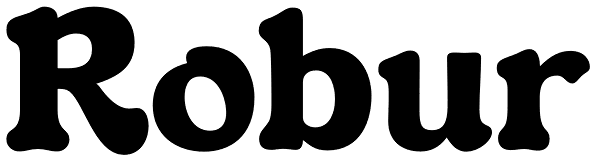
Robur
It shouldn't be a surprise to anyone that these letter shapes are familiar. They have the unmistakable color and weight of Cooper Black, Oswald Cooper's most famous typeface from 1921. What should be a surprise is that these letters are actually...
Robur Italic
Robur